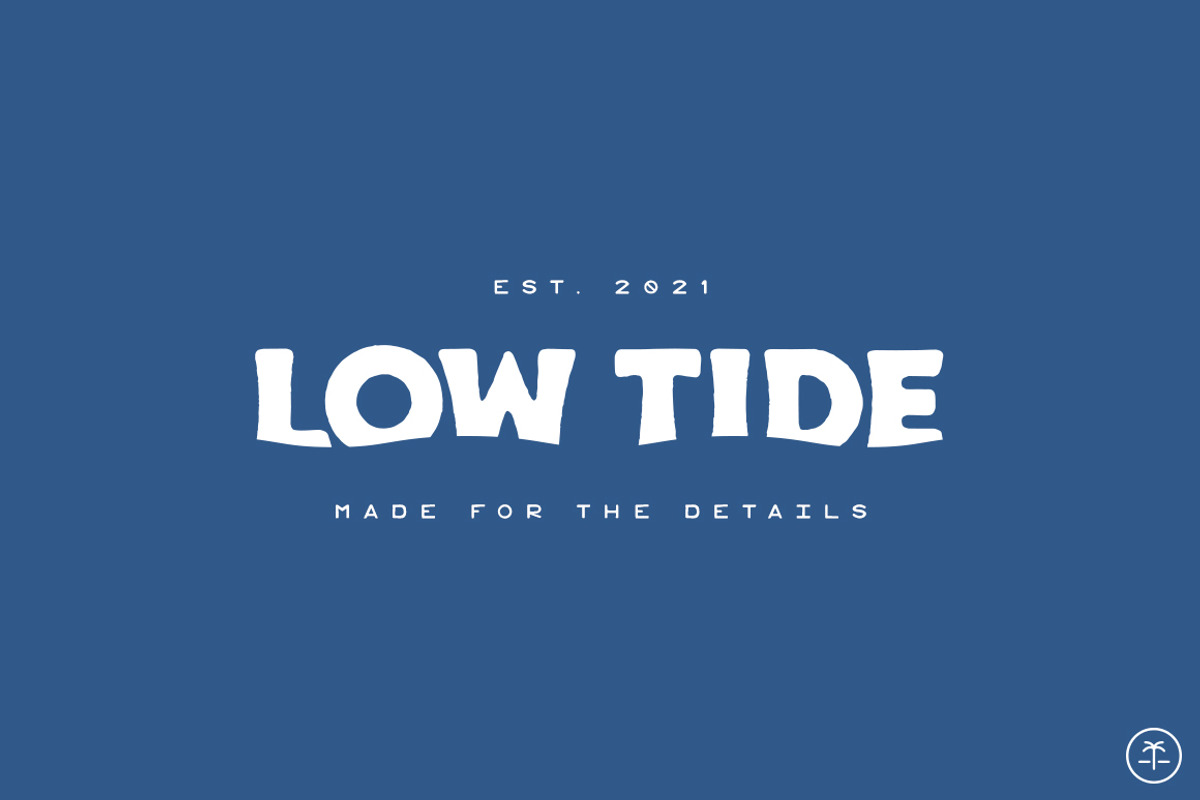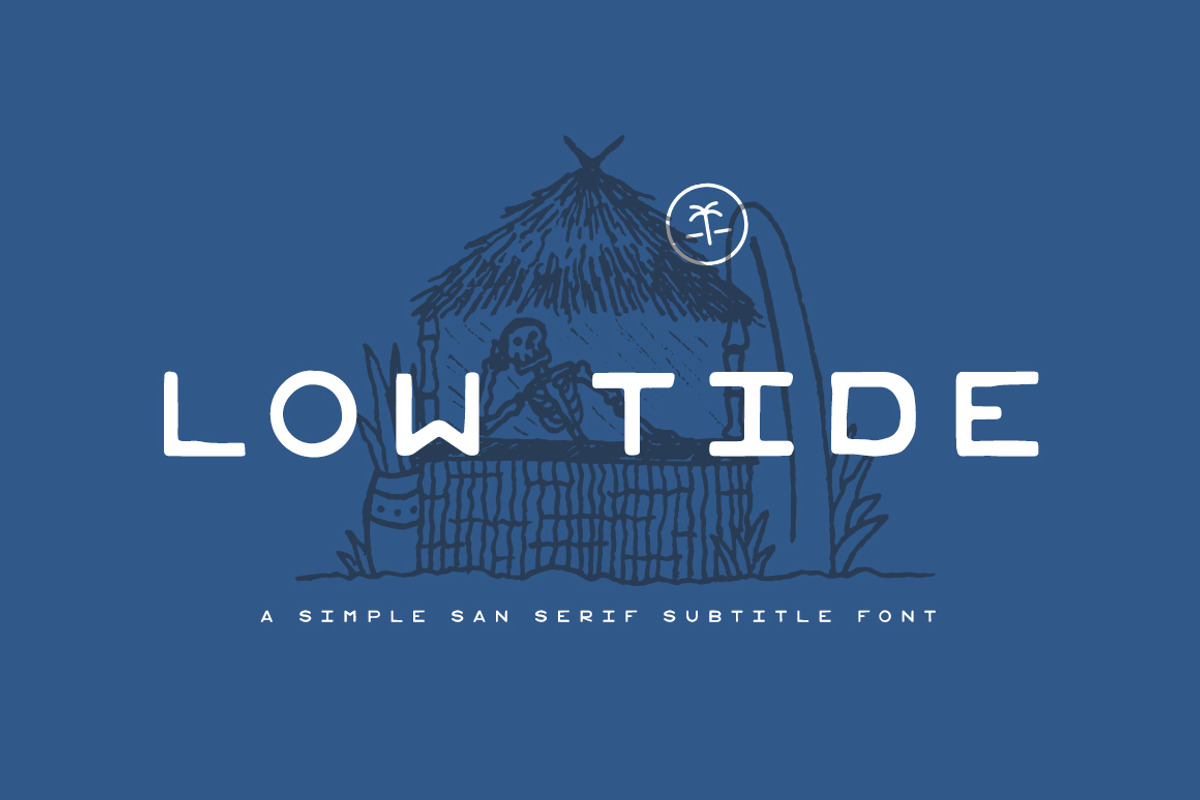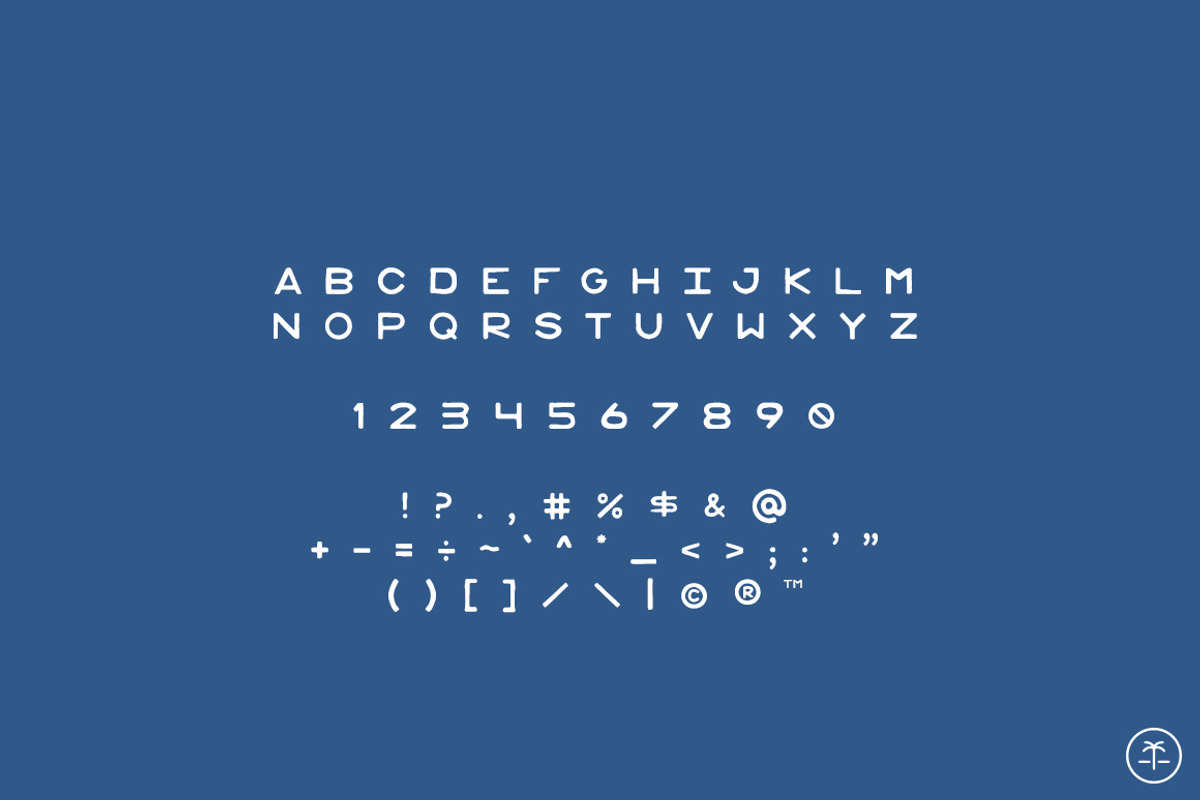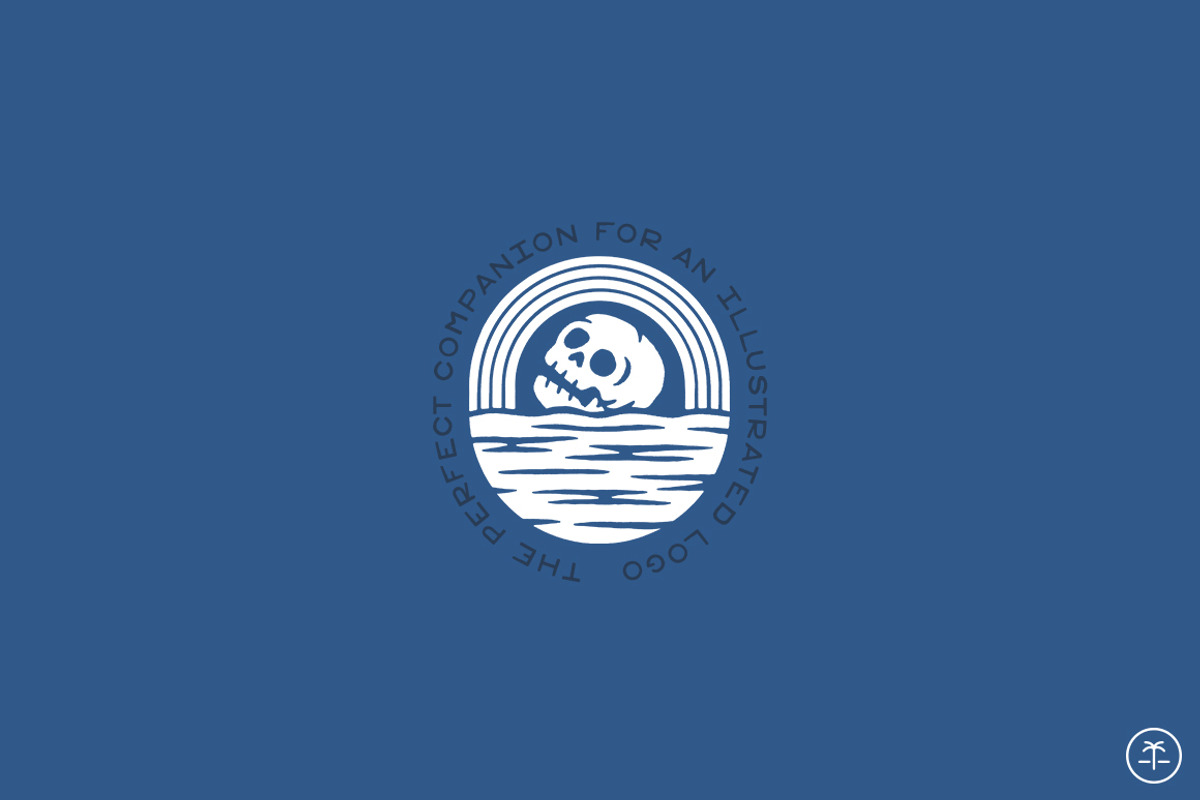
Low Tide - Simple San Serif Font
Add personality to your taglines and heading 2 text with Low Tide, a simple hand-drawn font that's perfectly happy not taking center stage.